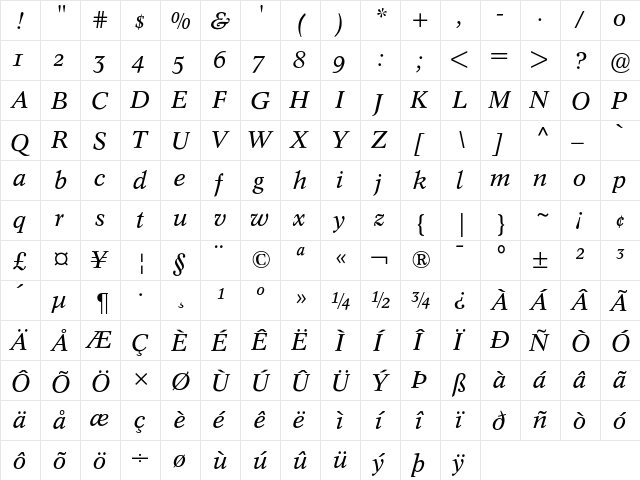
Concorde BE Italic with Oldstyle Figures
| Style | Italic with Oldstyle Figures |
Design Context for Concorde BE Typeface
Concorde BE carries the refined structure of traditional serif typography, with bracketed terminals and considered proportions that communicate credibility and craft. The dynamic lean of this cut emphasises speed and emphasis in any layout.